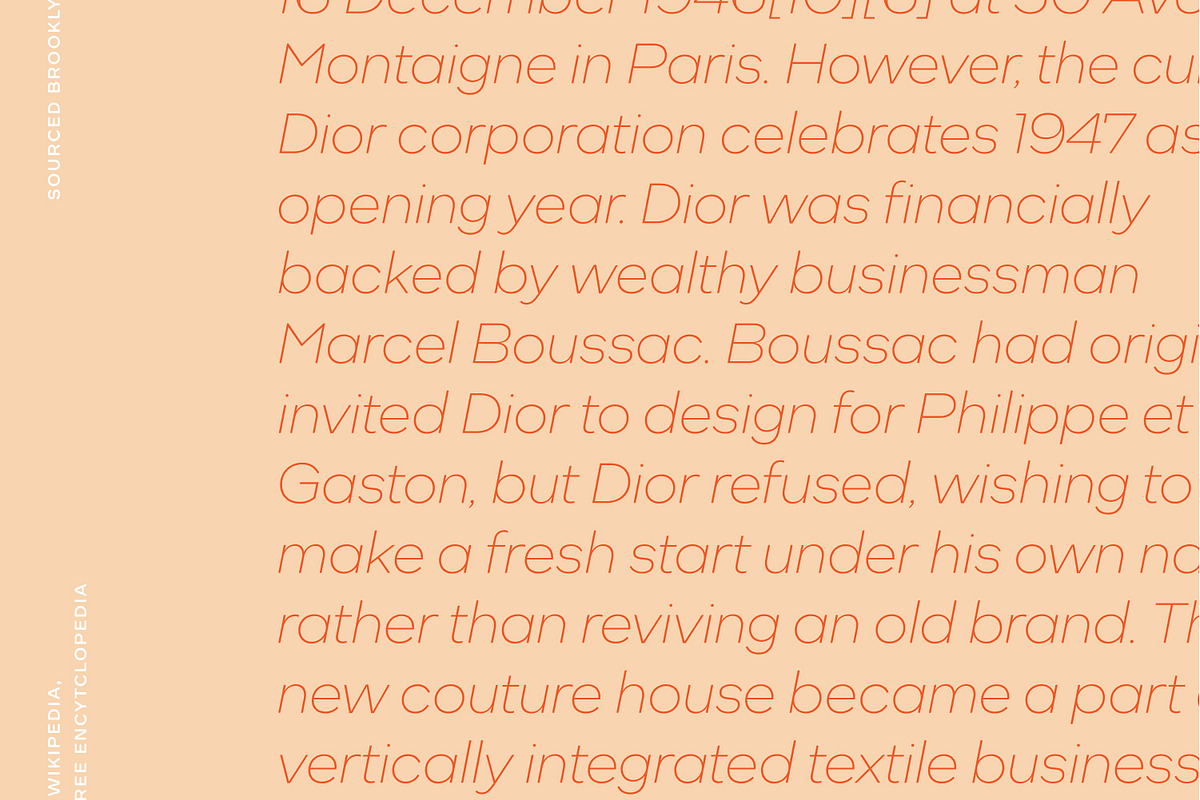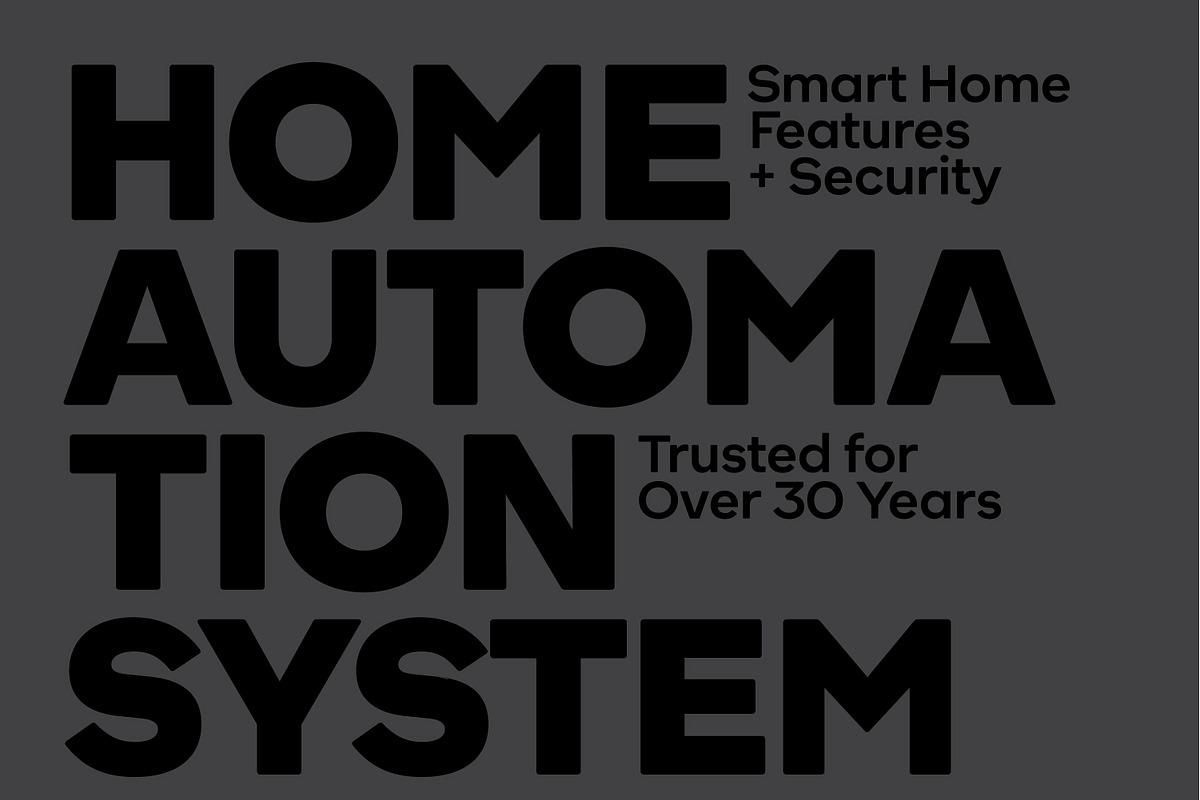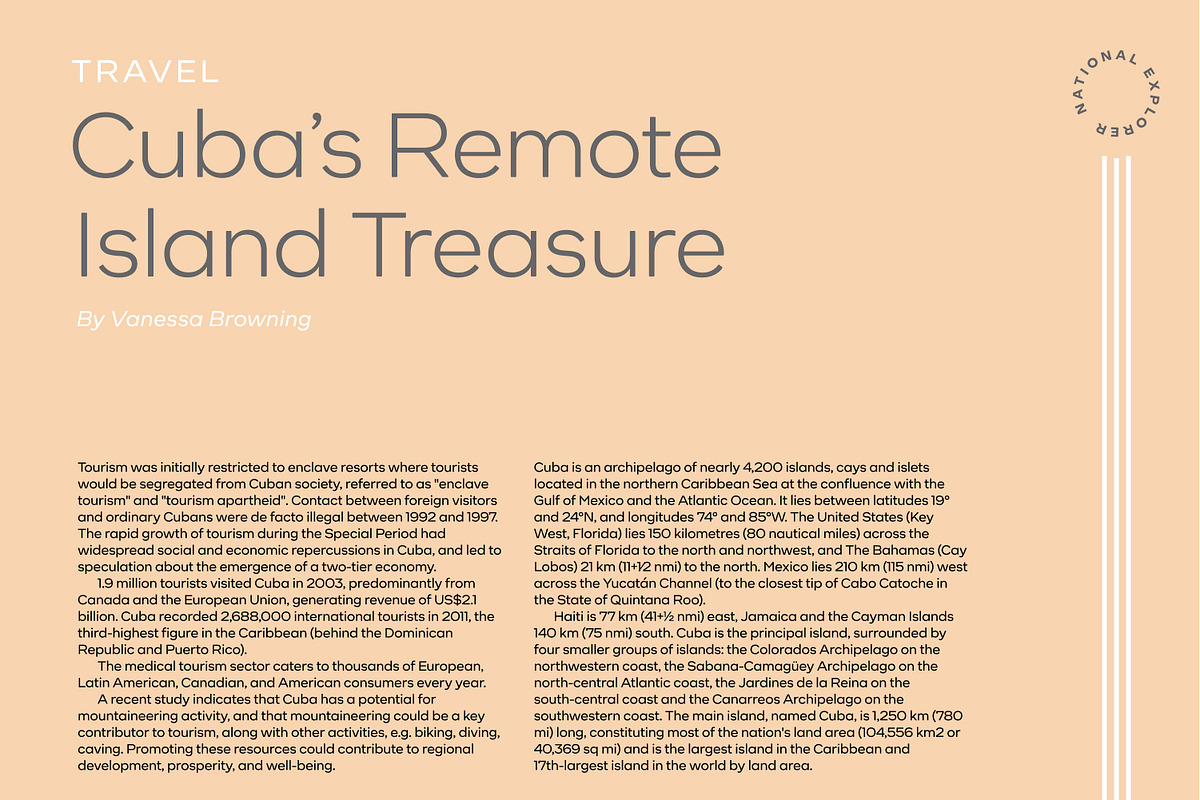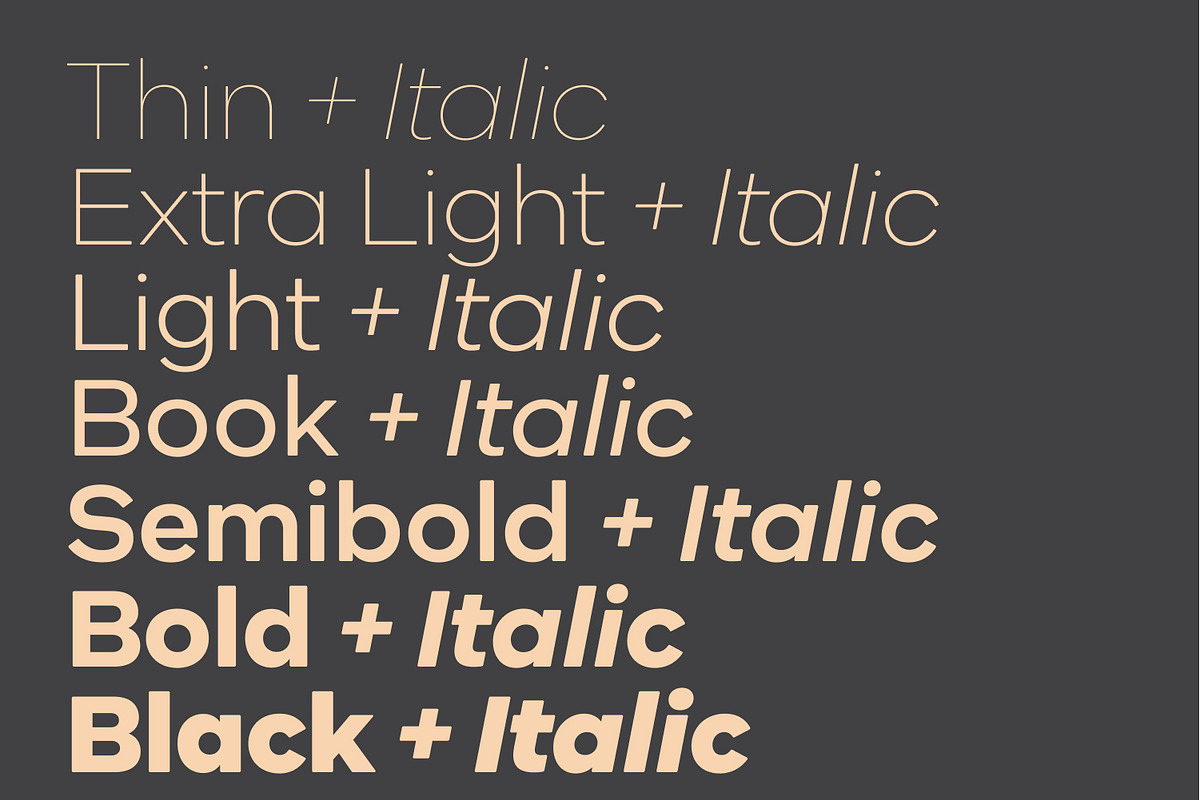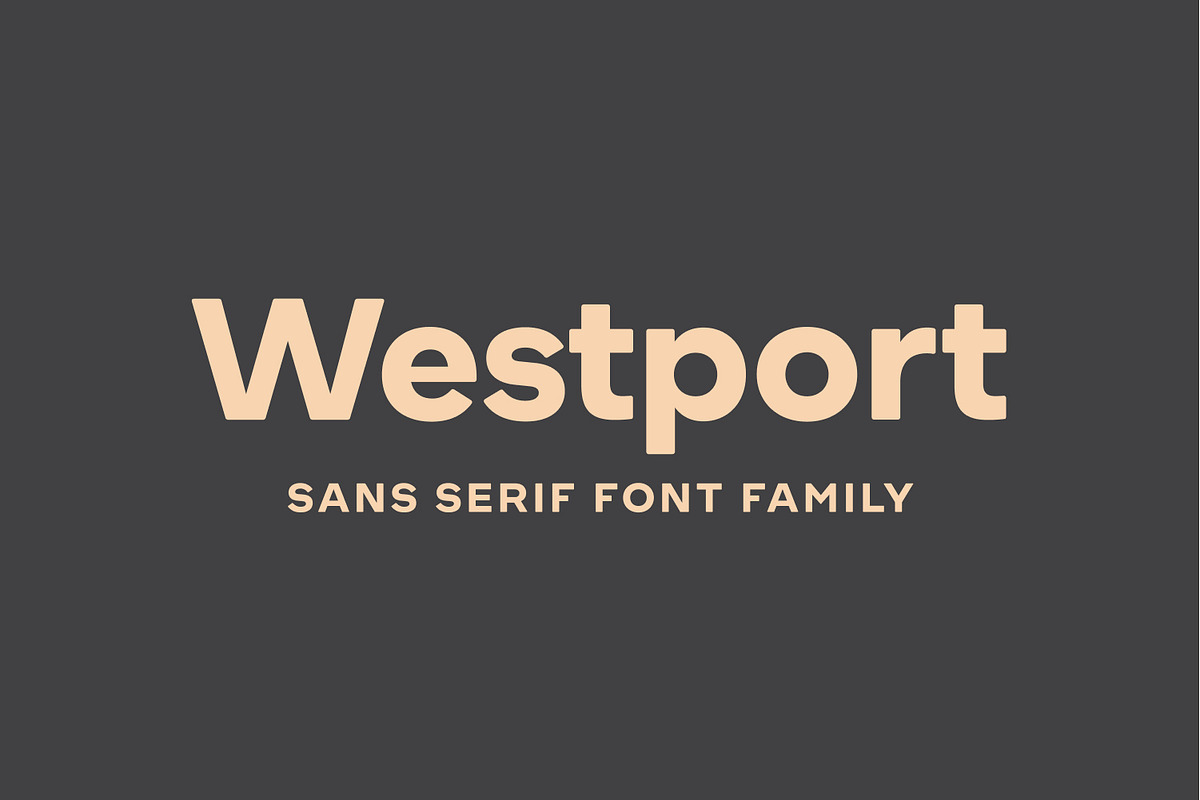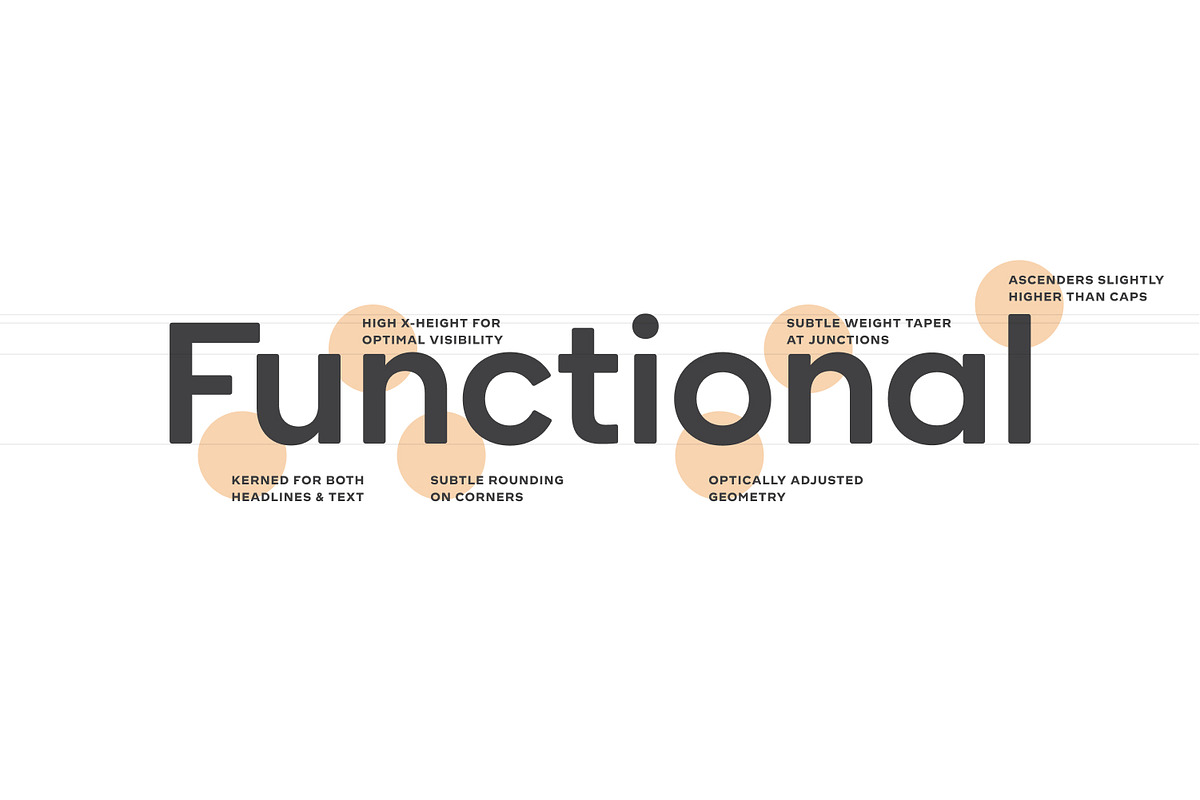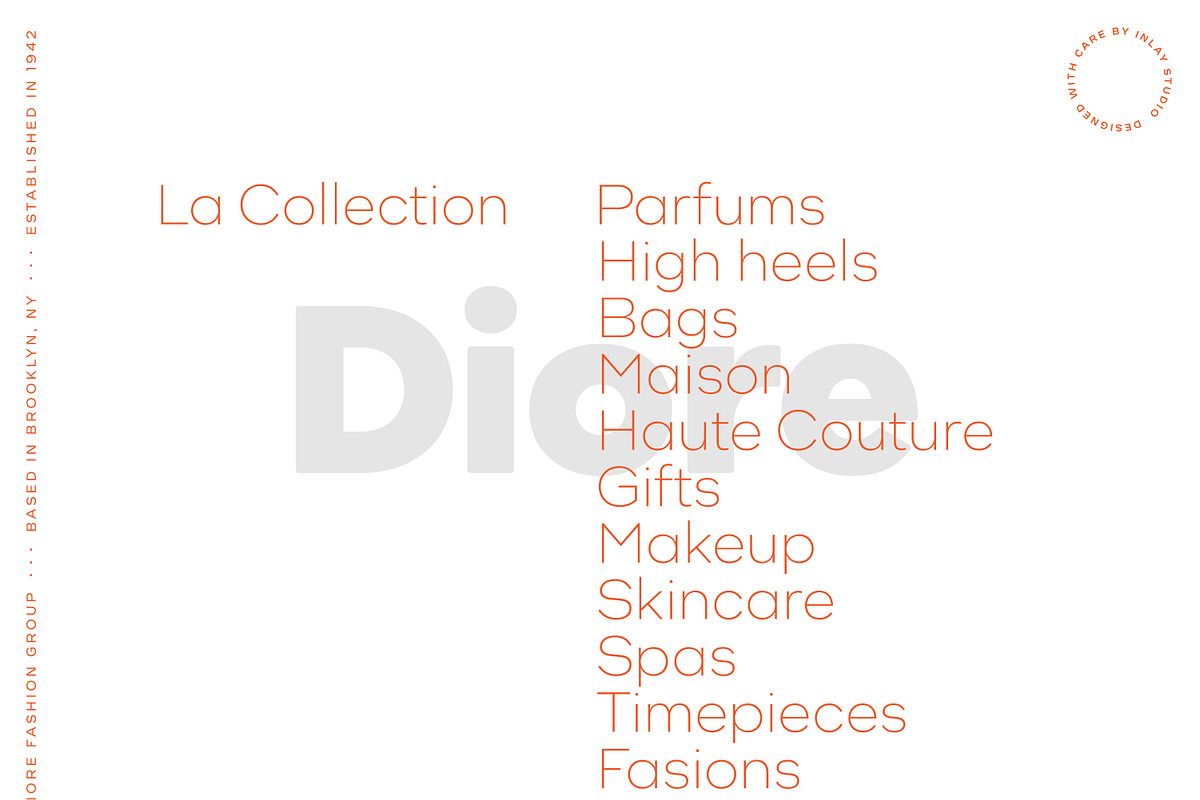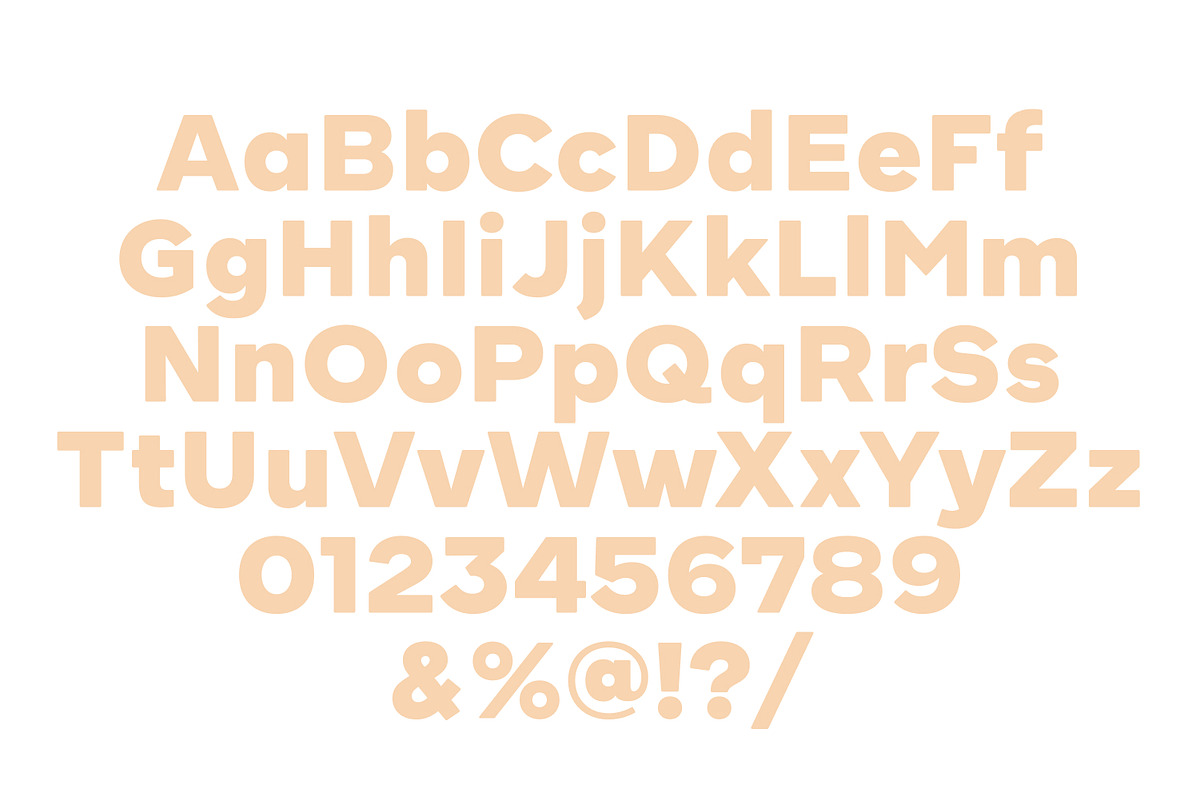
Westport — Geometric Sans Font
The heavier weights are bold without being harsh, and the lighter weights are classy yet still amicable. The classic geometric forms allow Westport to excel in both headlines and text settings and the robust set of weights and italics will have you using it on a regular basis. -7 weights + italics -Robust language support